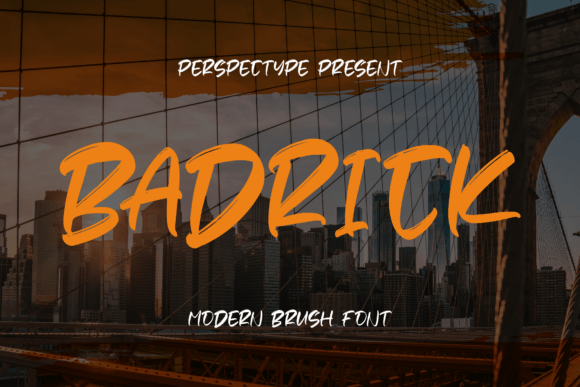
The Perfect Brush Stroke: Unlocking the Beauty of Badrick Font
Have you ever sat at your desk, staring blankly at a blank page, desperately searching for the perfect font to bring your design to life? We’ve all been there. It’s that moment when you’re pouring your heart and soul into a project, and the right typography can make all the difference. For designers, finding the perfect font can be a game-changer.
Enter the Badrick Font, a modern brush handwritten font designed to elevate your designs to the next level. This beautiful script font is perfect for a wide range of projects, from logos and branding to homeware designs and product packaging. With its unique, handcrafted feel, the Badrick Font is a valuable addition to any designer’s toolkit.
Badrick Font Key Features
- Unique Characteristic: The Badrick font features a unique, distressed design with a vintage aesthetic, making it perfect for creating a retro or antique look in various designs.
- Font Family: The Badrick font family consists of multiple styles, including Regular, Italic, Bold, and Bold Italic, offering users flexibility in choosing the right style for their project.
Badrick Font Review
Overall, I have mixed feelings about the Badrick Font. On one hand, it’s a great font for those who want to add a touch of elegance and sophistication to their designs. ✨ The font’s high x-height and moderate contrast make it easy to read, even at smaller font sizes. It also has a unique, vintage feel that can add character to various projects.
One of the things I like about the Badrick Font is its versatility. It’s suitable for both body text and headlines, and it can be used in a variety of contexts, from magazines to books. ✨ The font also comes in a range of weights, from light to bold, which makes it easy to customize for different designs.
While the Badrick Font has many positive qualities, it’s not without its limitations. ⚠️ One of the main issues I have with the font is its limited support for non-English languages. It’s also worth noting that the font may not be as readable on screens as it is in print.
Overall, I would say that the Badrick Font is a solid choice for designers who want to add a touch of elegance to their designs. While it may not be perfect, it’s a versatile and readable font that can be used in a variety of contexts.
- High x-height and moderate contrast for easy readability
- Unique, vintage feel that adds character to designs
- Range of weights from light to bold for customization
- Limited support for non-English languages
- May not be as readable on screens as in print
Badrick Font is ideal for creating elegant and sophisticated headings, titles, and quotes.
Use it in conjunction with high-quality images and graphics to create visually stunning designs.
Consider using Badrick Font in wedding invitations, luxury product packaging, and high-end marketing materials.